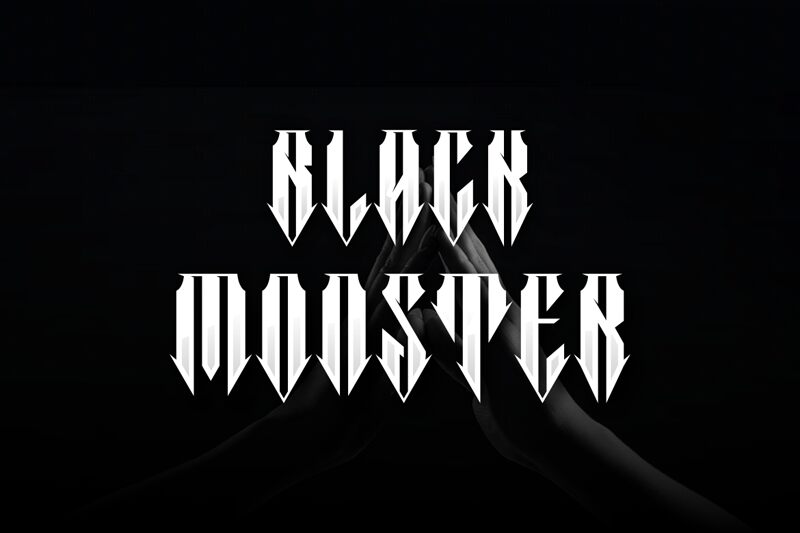
The Jumpster, designed by Ari Wibowo, is a modern gothic font that possesses an extra-condensed width. Its sleek and edgy appearance makes it ideal for projects that require a bold and contemporary touch.
Whether it's designing album covers or creating eye-catching headlines for fashion magazines, The Jumpster adds a captivating flair to any creative endeavor. With its sharp lines and distinctive style, this font is also well-suited for branding luxury products, giving them an air of sophistication and exclusivity.
Let The Jumpster elevate your designs to new heights with its unique blend of modernity and gothic charm.